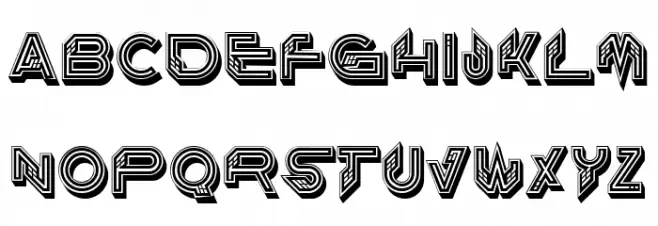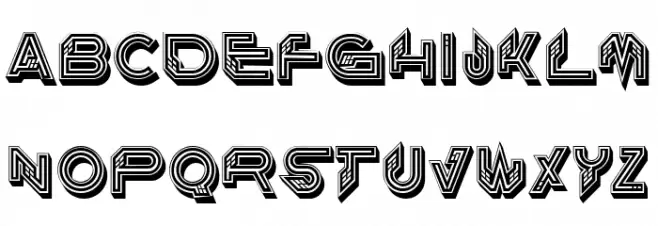
Girl Regular Font
Girl Regular Description
This font features a bold, geometric design with a three-dimensional effect. Each character is outlined with multiple layers, creating a sense of depth and complexity. The style is highly decorative, with sharp angles and a futuristic appearance. The uppercase letters are consistent in height, while the overall design maintains a uniform width. The intricate detailing within each letter adds a unique visual interest, making it suitable for eye-catching displays and creative projects.
A bold, geometric font with a 3D effect and intricate detailing.
- Proposed Projects: Ideal for posters, logos, and headlines where a striking visual impact is desired.
- Overall Style: Futuristic, Decorative